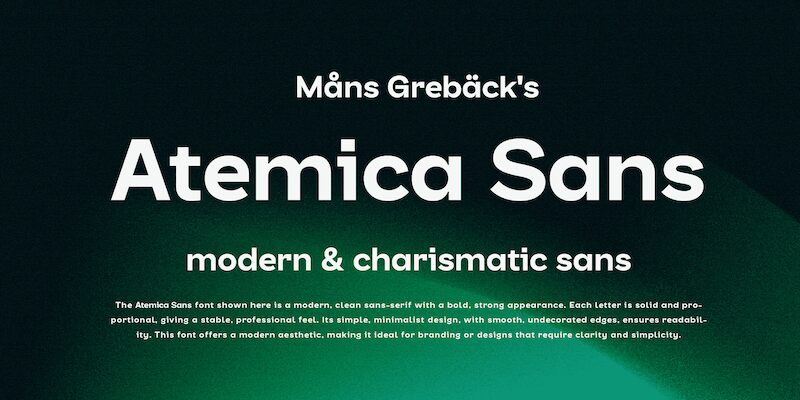
Atemica Sans Italic font by Mans Greback is a free sans serif font with a modern, sleek style. The geometric letterforms feature carefully balanced proportions for a clean and professional appearance. Inspired by both technological and artistic themes, Atemica Sans Italic has an even weight distribution that maintains clarity while highlighting the aesthetic of each glyph.
Use Atemica in business cards, stationery, online/print marketing materials, corporate apparel design, mobile apps/UI/UX projects, digital artwork, branding and identity projects across multiple print or web mediums.